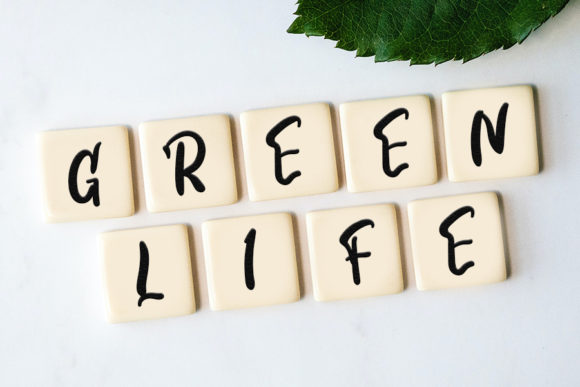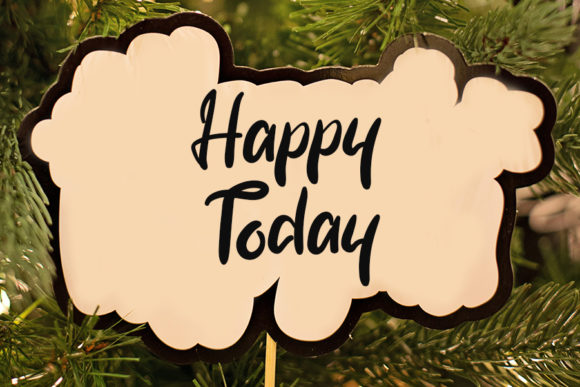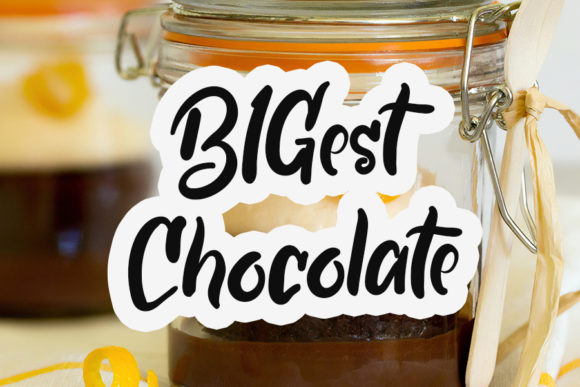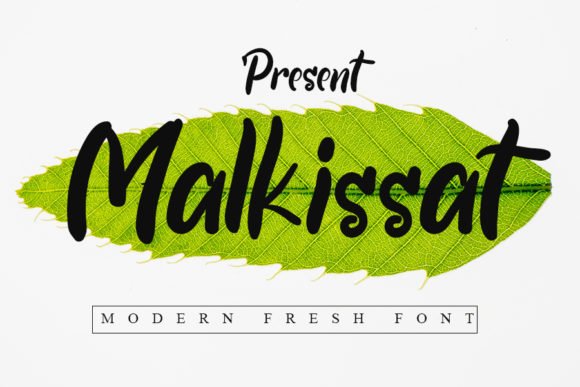
Introduction to Malkissat Font
Malkissat is a casual yet flowing and incredibly fitting handwritten font.
Get creative with this extraordinary and sweet font and add it to your most favorite designs .
Key Features of Malkissat Font